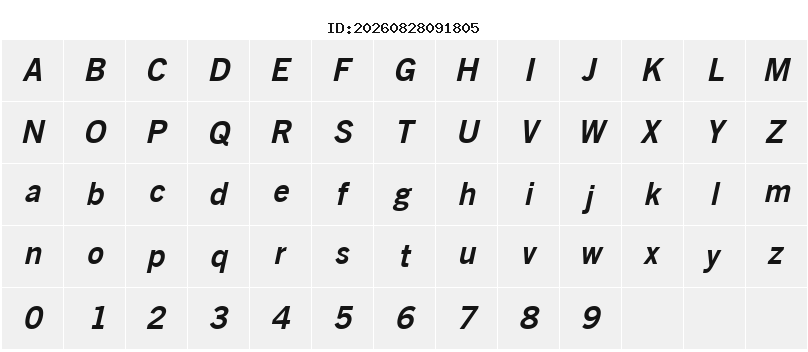
TradeGothic LT Preview
• Font Name: TradeGothic LT
• Font ID: Linotype Library GmbH: Trade Gothic LT Bold No. 2 Oblique: 2002
• Full Font Name: Trade Gothic LT Bold No. 2 Oblique
• Version: Version 6.1; 2002
• PostScript Name: TradeGothicLT-BoldTwoOblique
About TradeGothic LT.ttf
TradeGothic LT.ttf is a modern, elegant sans-serif font designed for ultimate readability and visual harmony. Perfect for branding, headlines, web design, and print materials.